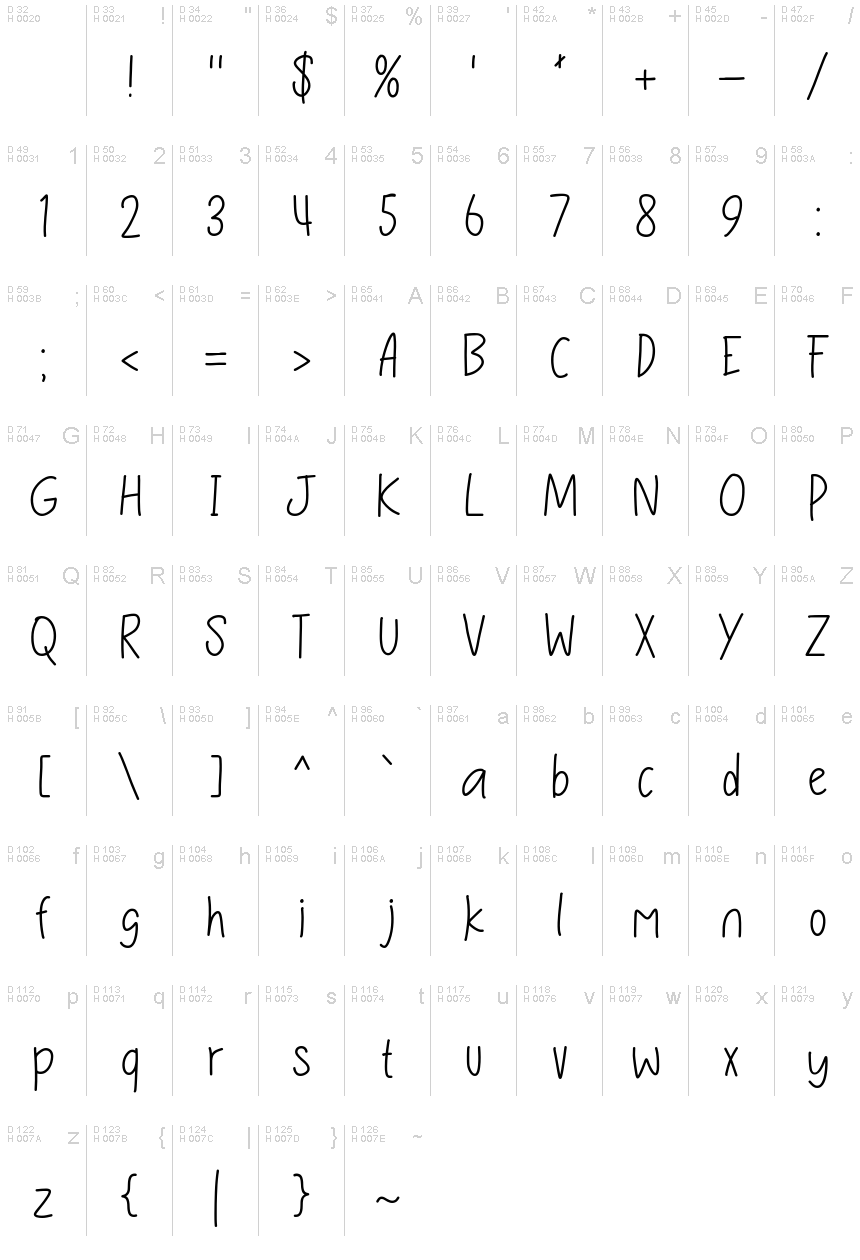
Noterwan - Demo
Noterwan, a captivating handwritten font crafted by Tera Asset Garage, exudes a delicate, organic charm. Its light, flowing strokes evoke a sense of effortless elegance, imbuing any text with a warm, personalized touch. The unique character shapes and natural variations create a distinctive, handcrafted aesthetic that adds a touch of authenticity to any design.
Noterwan's versatility makes it an excellent choice for a wide range of applications, from branding and packaging to editorial layouts and digital interfaces. Its legible, approachable style lends itself well to projects that require a personal, handmade feel, such as wedding invitations, greeting cards, or artisanal product labeling. The font's adaptability also makes it a compelling option for crafting captivating social media content or eye-catching headers.